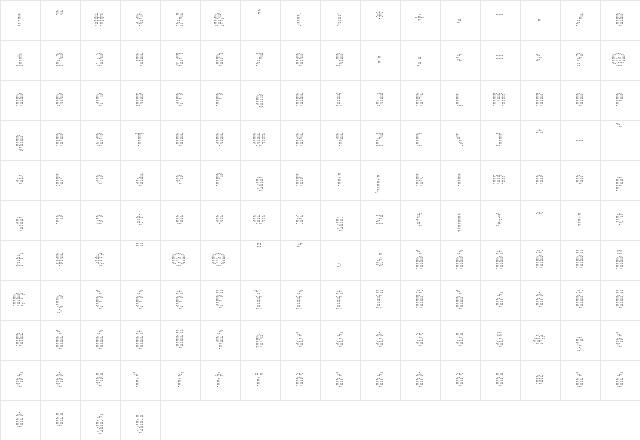
Complete Asterix Light Regular glyph index. Displaying only characters natively supported by Asterix Light Regular font.
Asterix Light is a composed and adaptable typeface that performs quietly and consistently across a wide range of design contexts. Its slender proportions lend an understated elegance to any composition.